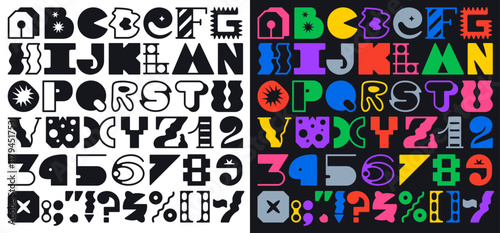
Y2K brutal font, abstract modern geometric typeface with funky type, vector English alphabet. Brutal font of abstract and cartoon thick bold letters or line art typeface in trendy cartoon funky design